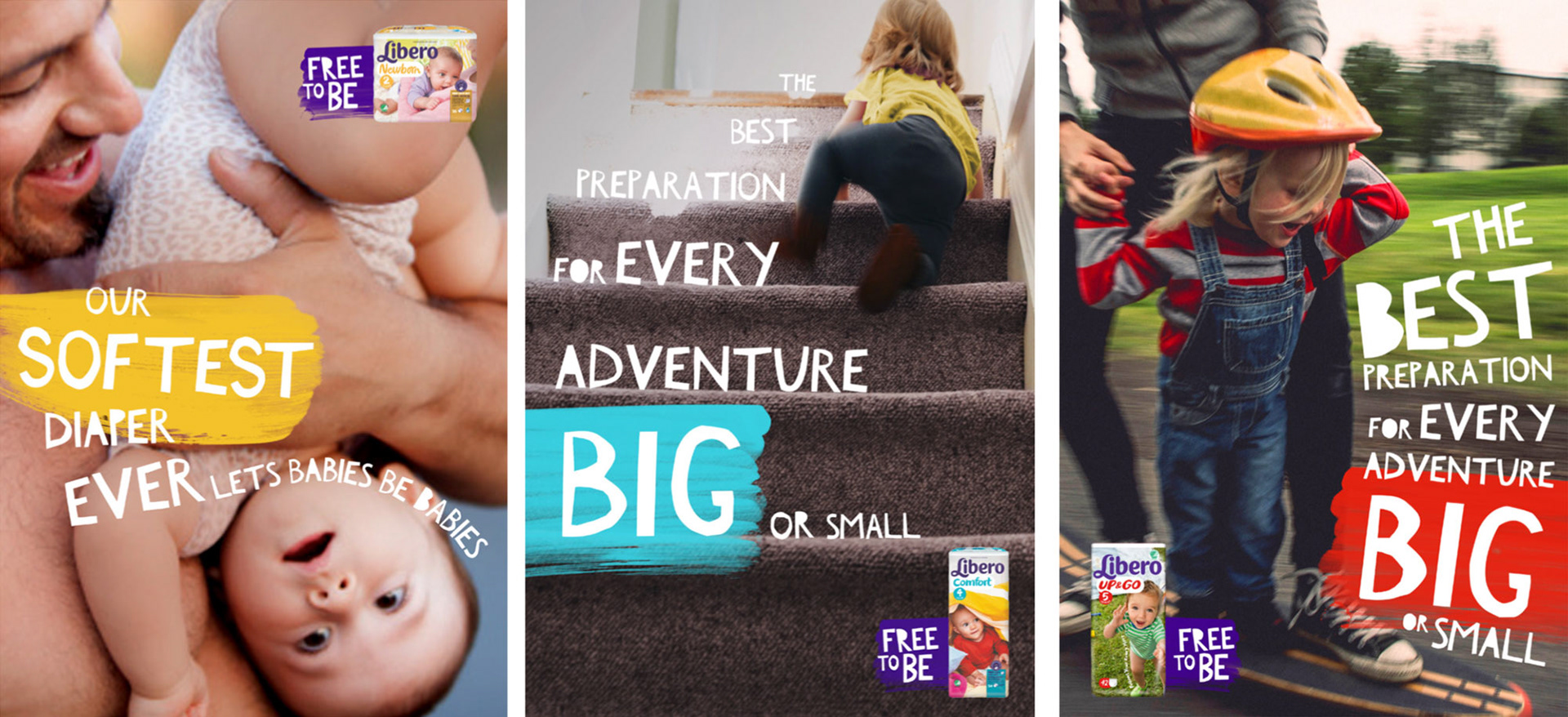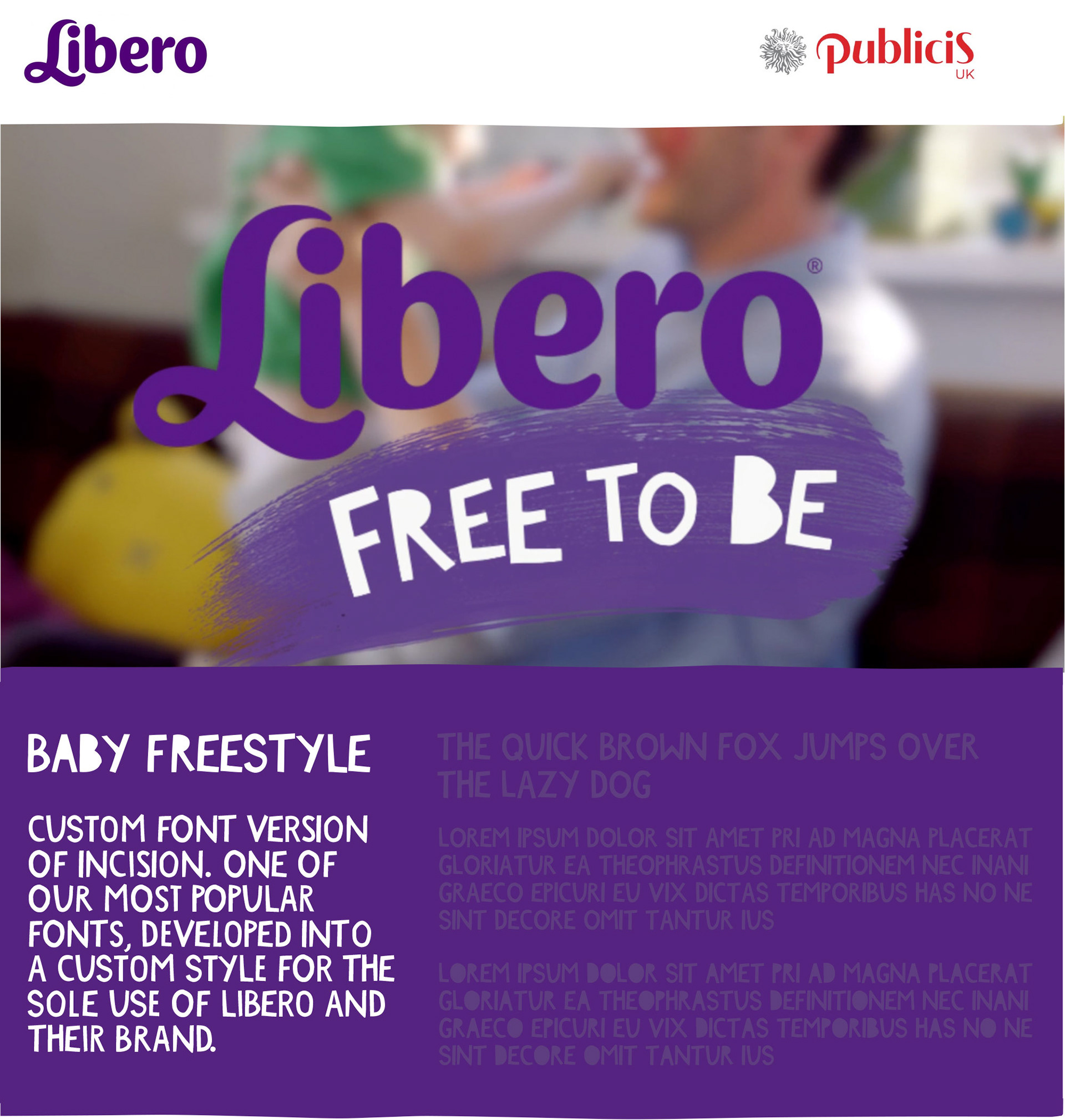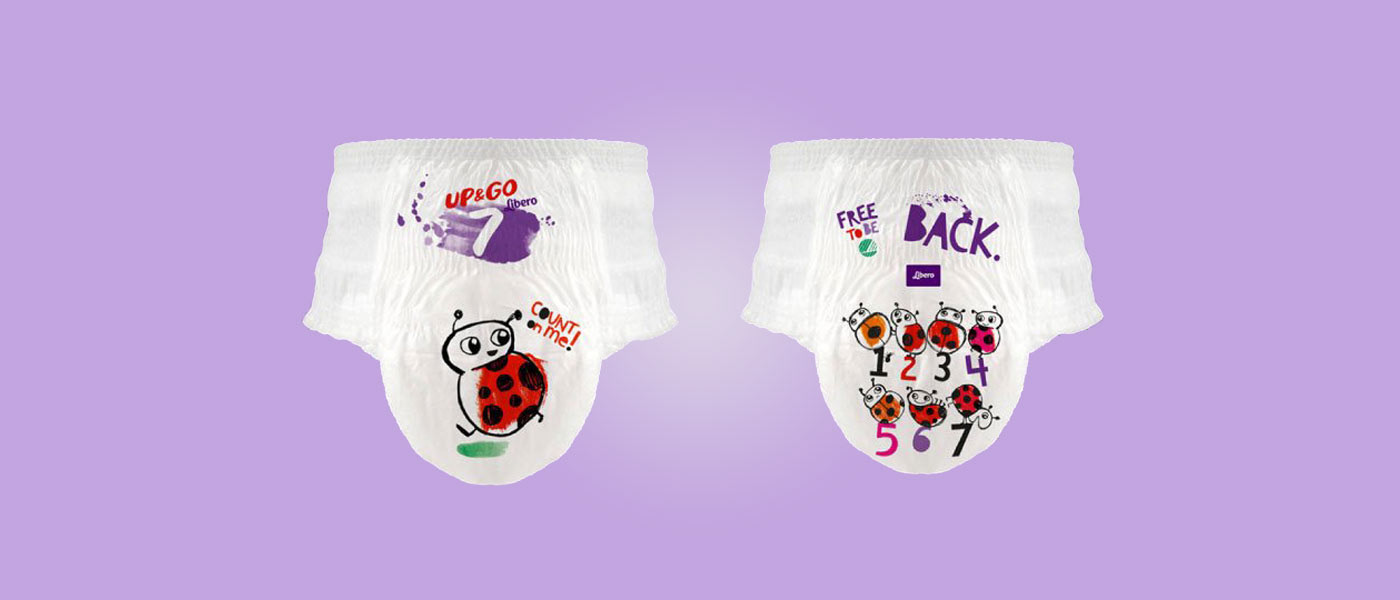
Custom Font Cut for Libero
As part of their project with Libero, we were approached to design a Custom Brand TypeFace Design to support the work they were doing in branding, identity, packaging and website for the company.
Custom Version of our popular font Incision
Publicis London approached us to design a custom version of our most popular font Incision, solely for the use of their client as part of their client campaign Libero. The Incision font is a cutout font initially released in 2013 and has been used on many books, magazines and particularly popular for packaging. The mixture of cut letters in both upper and lowercase simple in structure has since been built into a full weight family and has seen use across Film, TV, Advertising, and Packaging.
Custom font built for Publicis London as part of their client campaign Libero We are very proud to be approached by Publicis London to design a custom version of our most popular font incision. The Incision Typeface is a cutout font initially released in 2013 and has been used on many books, magazines and particularly popular for packaging. The mixture of cut letters in both upper and lowercase simple in structure has since been built into a full weight family Publicis London approached us to design a custom version solely for the use of their client Libero.
The project required
• A custom letter set version to be created for the sole use of Libero
• Refined letterforms, glyphs, and font creation.
• Uppercase refined letters, in differing styles, cutout variations, and Opentype features.
• Over 300 characters with multilingual support Greek, Hebrew and other language sets.
• Continued support and growth to support more extensive font sets and language requirements
• Built in 8 weeks to meet the deadline of the brand
• The custom typeface has been used for packaging, billboards, website promotion, on-screen graphics and has been released worldwide